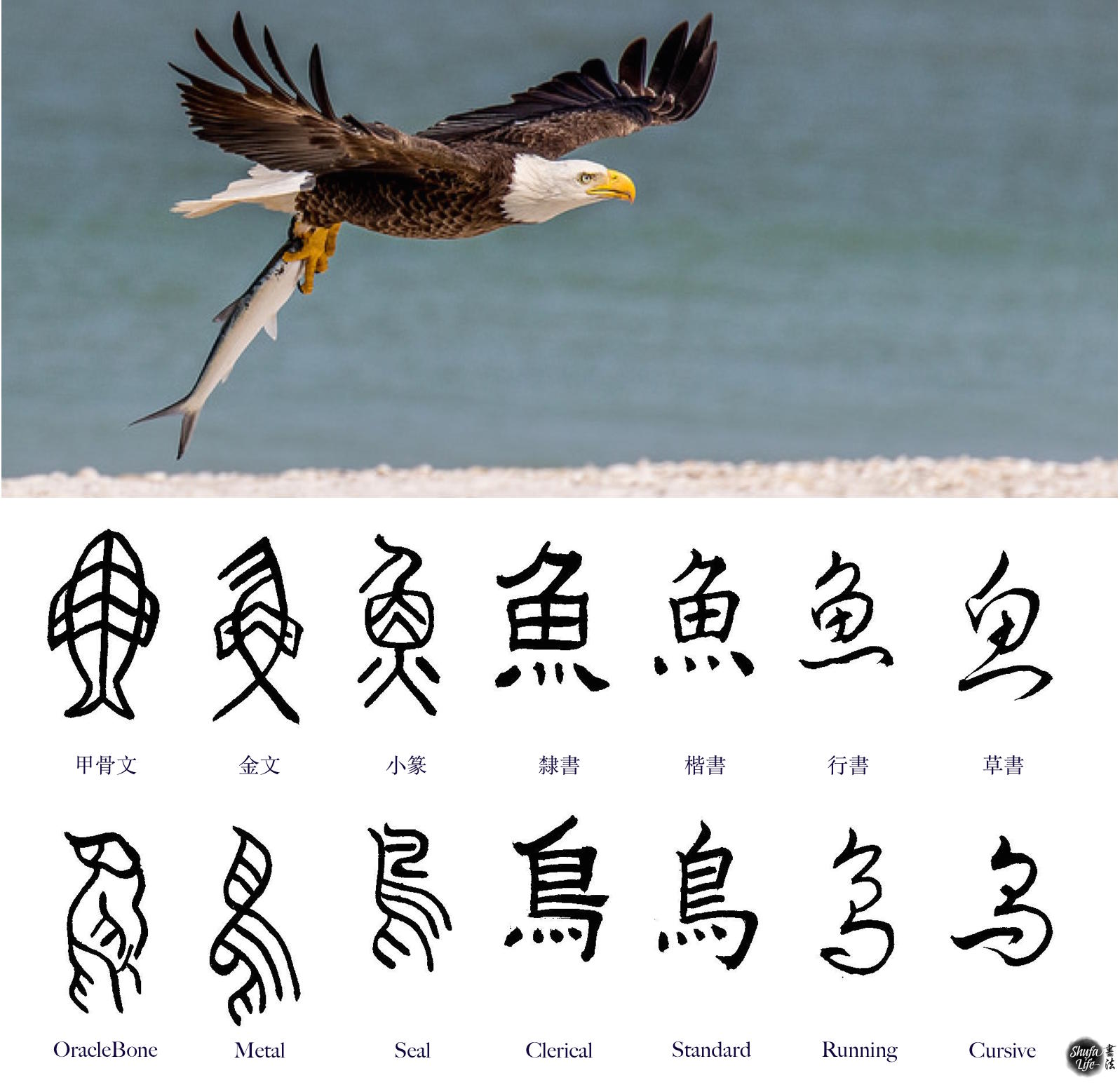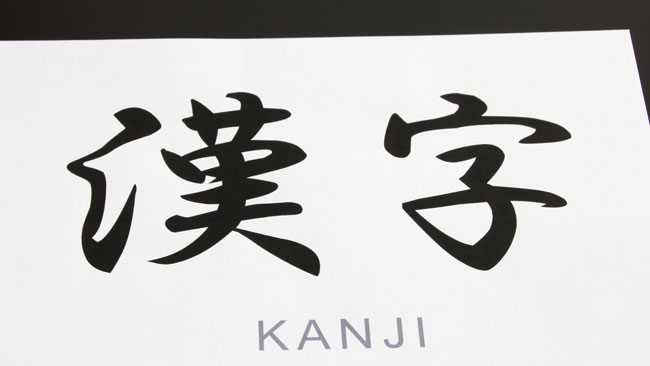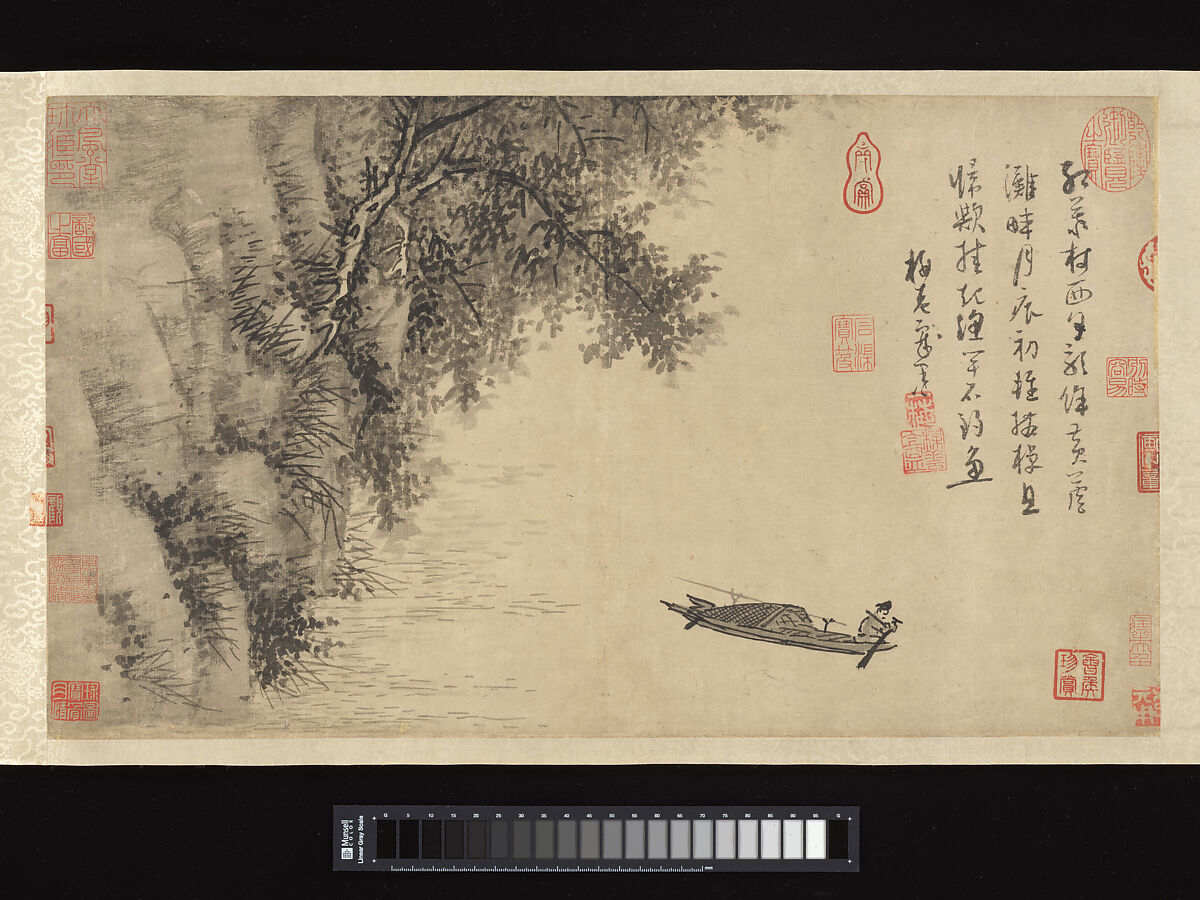
Traditional Chinese fonts are typically used in Hong Kong Macau Taiwan and most overseas Chinese communities. The BIG 5 character set which includes 13600 characters is the most common character set used in Traditional Chinese fonts.
Chinese calligraphy font generator. Calligraphy or the craft of extravagant composing has a great many years in its history and improvement. If you want to use Chinese fonts online without downloading you can use our text generator below. Shufazidian is a Chinese calligraphy generator where characters are taken from original text.
Simplified Chinese exไธญๅฝ output. Type your text into the font generator. However either western calligraphy or Chinese or Arabic calligraphy they have strict rules and shapes with a geometrical order of lining on the page each character with a precise stroke order.
The dynasty and name of the text sources are included. They are of style refinement inventiveness and unadulterated excellence. Calligraphy fonts resemble elegant handwriting.
Xuke Li Chinese calligraphy Font-Simplified Chinese. Duanning Ink Brush Semi-Cursive Script Chinese Font-Simplified Chinese. For different scripts for example Chinese or Arabic they have developed their own way of calligraphy.
Here are the steps to complete this process. Calligraphy Font Generator ๐ฌ๐ธ๐น๐ ๐๐๐ ๐น๐ช๐ผ๐ฝ๐ฎ Free Calligraphy is gotten from Greek signifying delightful composition. The standard basic settings show how things can be laid out.
The following tool will convert your text to images and you can use different Chinese fonts colors text effects. Chinese calligraphy is a traditional form of writing characters from the chinese language through the use of ink and a brush. This font fully represents the look Calligraphy Simplified Chinese Traditional Chinese.
Traditional Chinese exไธญๅ output. Browse over 13000 free truetype fonts by category. Shu ti Fang Jiahong Xiang writing brush Running script Font-Simplified Chinese.
Hanyi Senty Wen ๆฑไปชๆฐ่ๆๅพตๆไฝ is a free to download Chinese font that was designed based on calligrapher Wen Zheng Ming from the Ming Dynasty. Japan hengshan writing brush Font-Traditional Chinese. Jishi Chen Xing Kai Font-Simplified Chinese.